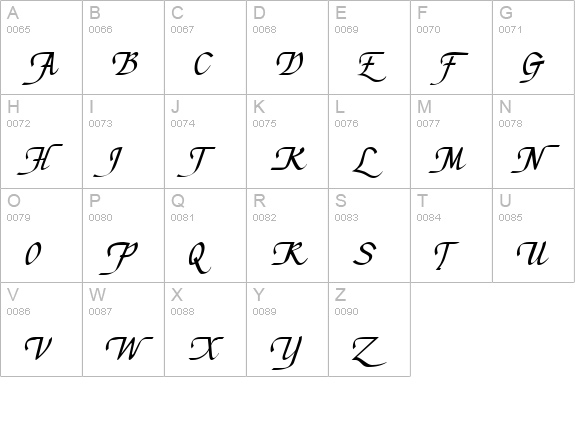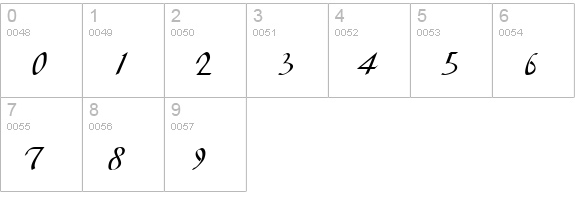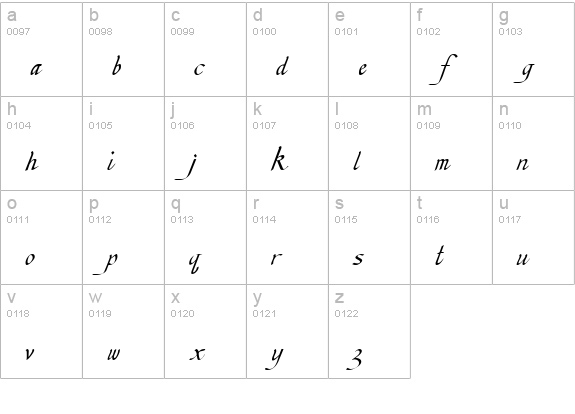
Chancellerie Moderne Demo Font Details
Chancellerie Moderne Demo font is a sophisticated and elegant typeface that exudes timeless charm and classic appeal. Its graceful letterforms and intricate details make it the perfect choice for projects that require a touch of refinement and sophistication. This stunning font is free to download at FontsMarket.com, allowing you to add a touch of old-world elegance to your designs without any cost. With its exquisite design and historical flair, Chancellerie Moderne Demo font is sure to make a lasting impression on any project.